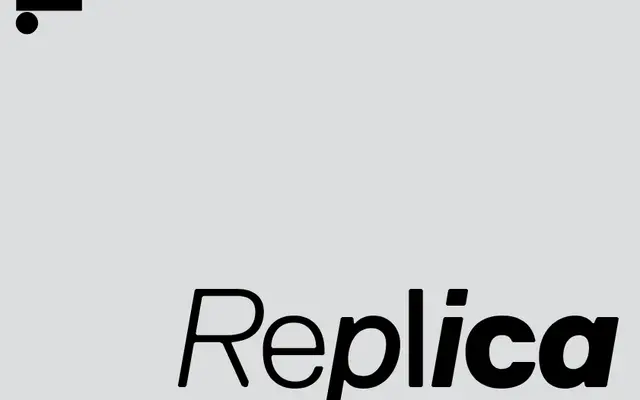
LL Replica
Lineto · NORM (Dimitri Bruni, Manuel Krebs) · 2008
A Zurich-built sans-serif by NORM, constructed on a deliberately coarse 70-unit grid that imprints bevelled corners and clipped diagonals onto every glyph.
Designed by Dimitri Bruni and Manuel Krebs of NORM and released by Lineto in 2008, the typeface emerged from a self-imposed constraint: reducing the standard 700-unit cap height to just 70 units, forcing all nodes and Bézier points onto a coarse grid. The bevelled inner and outer corners act as negative ink traps, and the vertical cuts on diagonals allow very tight setting, particularly in heavier weights. A monospaced cut in the regular weight was released separately, and the family runs across four weights with matching italics.
Classified by Lineto as a bold sans-serif of Middle-European descent; its strict grid construction and bevelled corners give it a geometric rigour distinct from humanist or grotesque traditions.